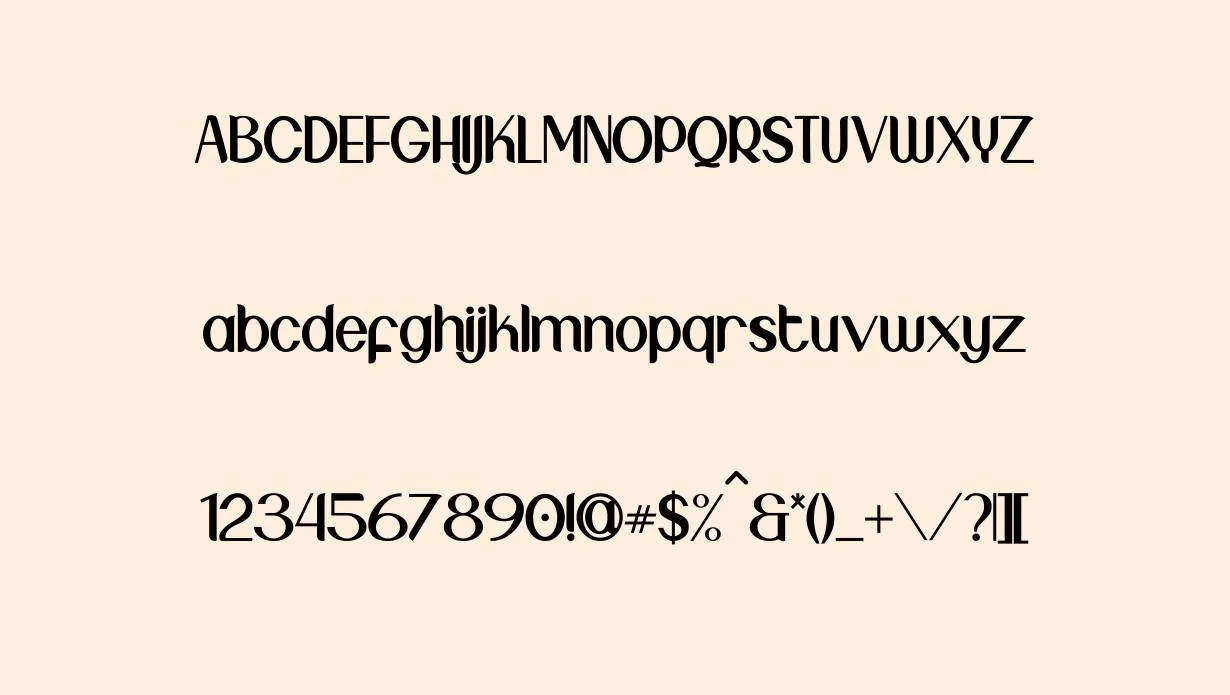
Crown Font is a typeface that exudes regal elegance and sophistication. It’s commonly used in upscale branding, formal invitations, and editorial design, where a sense of prestige and class is essential.
The font’s ornate and distinguished letterforms ensure a royal and timeless appearance in design work. The coveted texture of this typeface makes it a favorite among creators. Furthermore, you have the option to explore other fantastic typefaces, such as Dino Jump Font and Beauty Brand Font, that offer unique qualities.